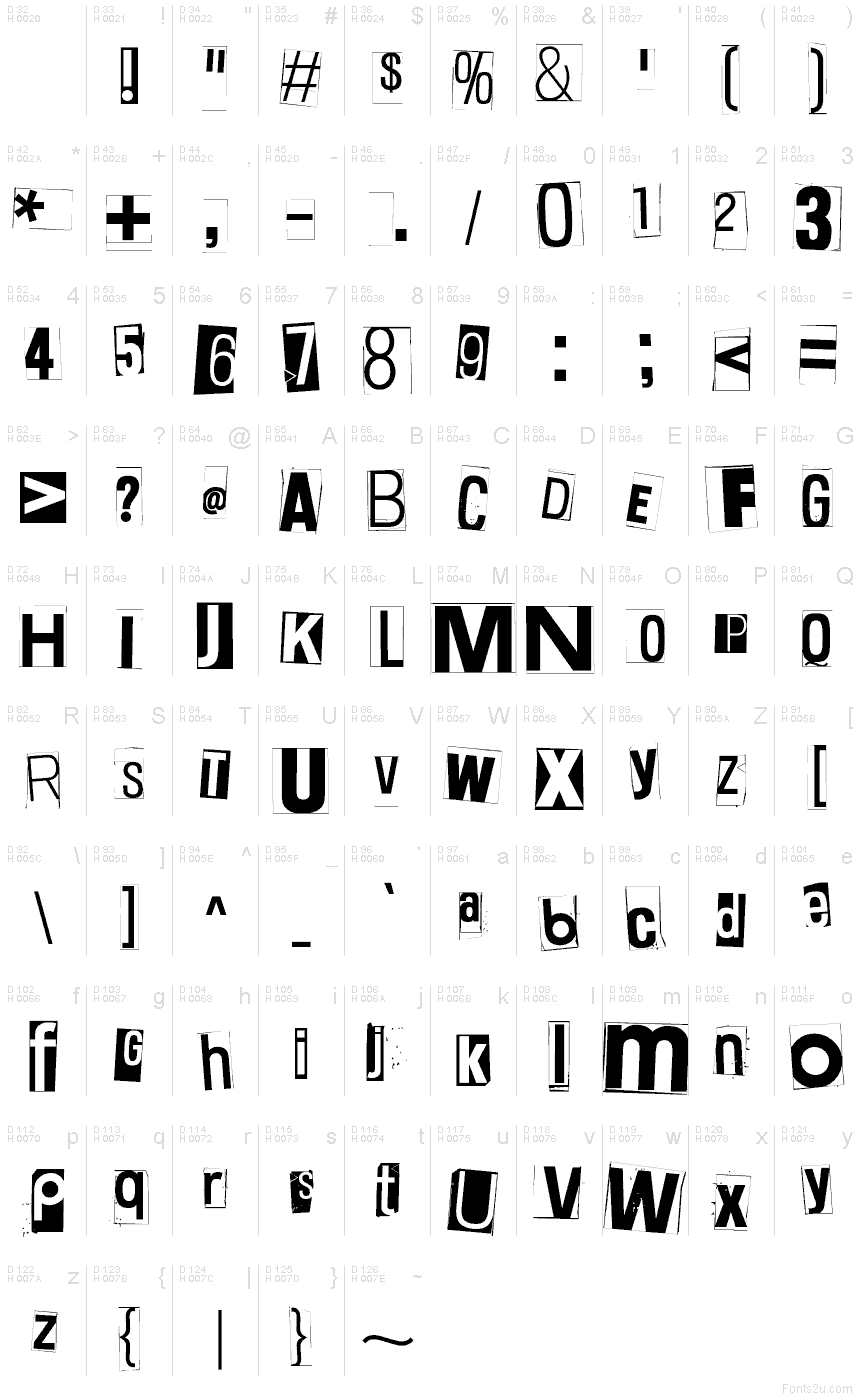
White Square Red Yes Black Eight Warsaw Warsaw font by Juha Korhonen is a free bold distorted display font. Part of the White Square Red Yes Black Eight family, it leans into a ransom-note collage vibe: tilted black and white tiles, jittery spacing, and scuffed, inky edges that feel hand-cut and glued. The letters wobble on a bouncy baseline, creating a restless rhythm that grabs attention without getting unreadable.
Using White Square Red Yes Black Eight Warsaw Warsaw, headlines snap with zine energy-great for punk gig posters, horror titles, thriller book covers, escape-room branding, activist placards, and edgy packaging. This free font shines at oversized scales; keep body copy in a plain grotesque to let the chaos sing. One tip: add generous tracking to enhance the cut-paper texture and tighten visual cohesion.